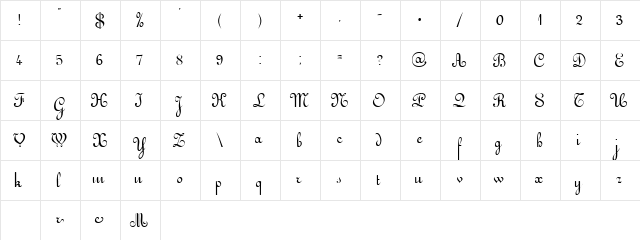
GE Afresco Script Normal
Design Context for GE Afresco Script Typeface
GE Afresco Script brings a calligraphic fluidity to the page — its connecting strokes and expressive curves give it an unmistakably human quality.
Font Pairing: Combine GE Afresco Script with a simple geometric sans for maximum contrast — the tension between flowing curves and clean structure is a classic typographic pairing.
Pro Tip: Use GE Afresco Script for short runs of text — names, titles, or taglines. Extended body copy in script faces tires the eye quickly.